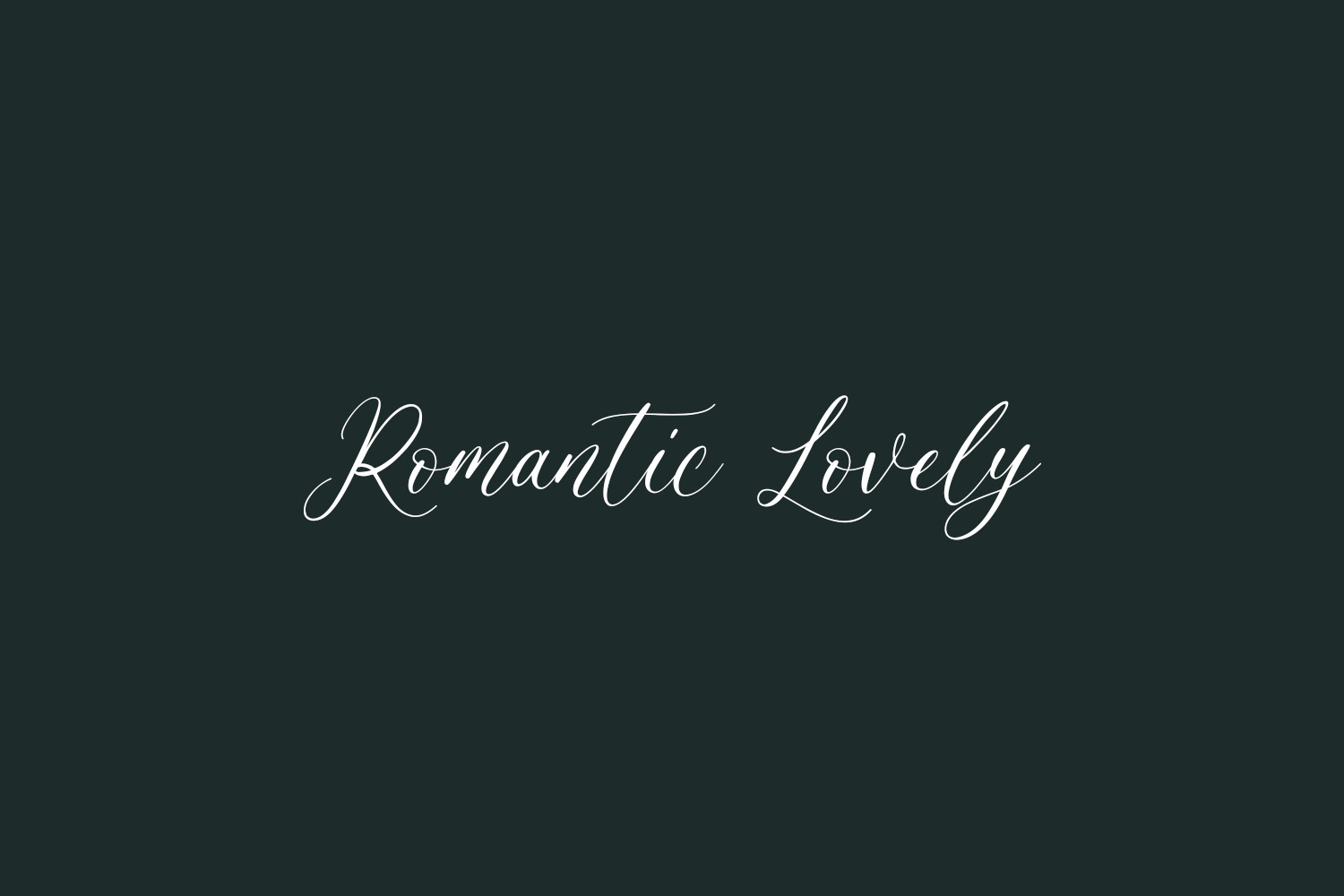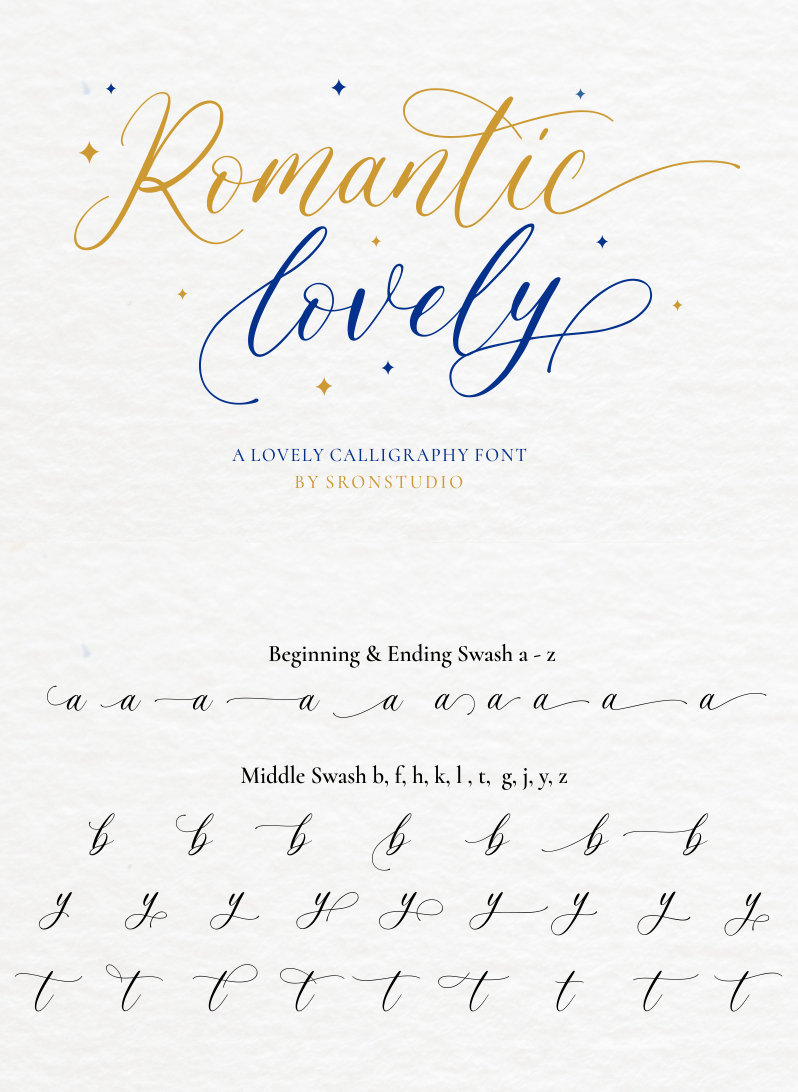
Romantic Lovely Font
Romantic Lovely Font - Every font is free to download! Click to find the best 1,342 free fonts in the love style. This font is for personal use. Web looking for love fonts? Web download free romantic lovely font for personal use and preview its characters, glyphs and effects. Web download romantic lovely, a custom font by sronstudio, a script > calligraphy font with 497 glyphs.
Web looking for love fonts? This font is for personal use. Click to find the best 1,342 free fonts in the love style. Web download romantic lovely, a custom font by sronstudio, a script > calligraphy font with 497 glyphs. Every font is free to download! Web download free romantic lovely font for personal use and preview its characters, glyphs and effects.
This font is for personal use. Click to find the best 1,342 free fonts in the love style. Web download romantic lovely, a custom font by sronstudio, a script > calligraphy font with 497 glyphs. Web looking for love fonts? Web download free romantic lovely font for personal use and preview its characters, glyphs and effects. Every font is free to download!
Romantic Lovely Font
Web looking for love fonts? Web download free romantic lovely font for personal use and preview its characters, glyphs and effects. Web download romantic lovely, a custom font by sronstudio, a script > calligraphy font with 497 glyphs. This font is for personal use. Click to find the best 1,342 free fonts in the love style.
Web Download Romantic Lovely, A Custom Font By Sronstudio, A Script > Calligraphy Font With 497 Glyphs.